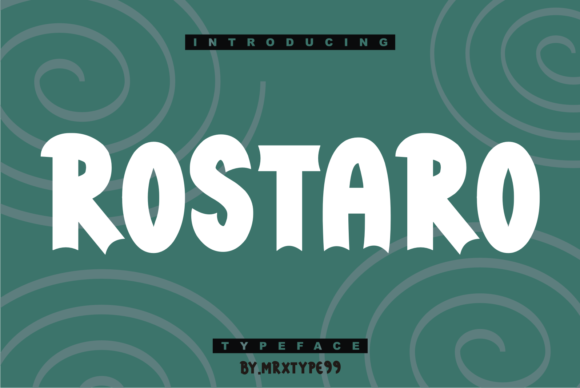
Dive into the world of Rostaro, a font that embodies the essence of bold expression and attention-grabbing designs. Crafted by MRXTYPE, this display font is a masterpiece of simplicity and visual impact. With its thick, solid letters and a touch of retro charm, Rostaro is the perfect choice for creating captivating designs that demand attention.
Experience the power of Rostaro and witness how effortlessly it transforms your creations into captivating masterpieces. This font is a visual feast, a symphony of bold strokes that dance across the page, leaving an indelible mark on the hearts and minds of your audience. Prepare to be mesmerized by the sheer visual magnetism of Rostaro, a font that will elevate your designs to new heights of brilliance.
Designed with meticulous attention to detail, Rostaro is not just a font; it's an artistic statement. Its thick, solid letters exude a sense of strength and stability, while its retro charm adds a touch of nostalgia, making it the perfect choice for creating designs that resonate with a wide range of audiences. Unleash your creativity and explore the endless possibilities that Rostaro presents, from eye-catching logos and branding materials to captivating social media graphics and website designs.
With Rostaro, the possibilities are limitless. Its versatility knows no bounds, making it the ideal choice for a diverse range of design projects. Imagine the impact of Rostaro on your sports-themed designs, where it can bring the energy and excitement of the game to life. Create jersey designs that radiate athleticism and determination, or design posters and flyers that capture the spirit of competition. The bold, blocky letters of Rostaro will add an extra layer of intensity and drama to your designs, ensuring that they leave a lasting impression.
But Rostaro's appeal extends far beyond the realm of sports. Its retro charm makes it an excellent choice for vintage-inspired designs, where it can evoke a sense of nostalgia and timeless elegance. Create stunning posters and invitations for events, or design logos and branding materials that exude a classic, sophisticated vibe. Rostaro's ability to blend the past with the present makes it a versatile choice for designers seeking to create designs that stand the test of time.